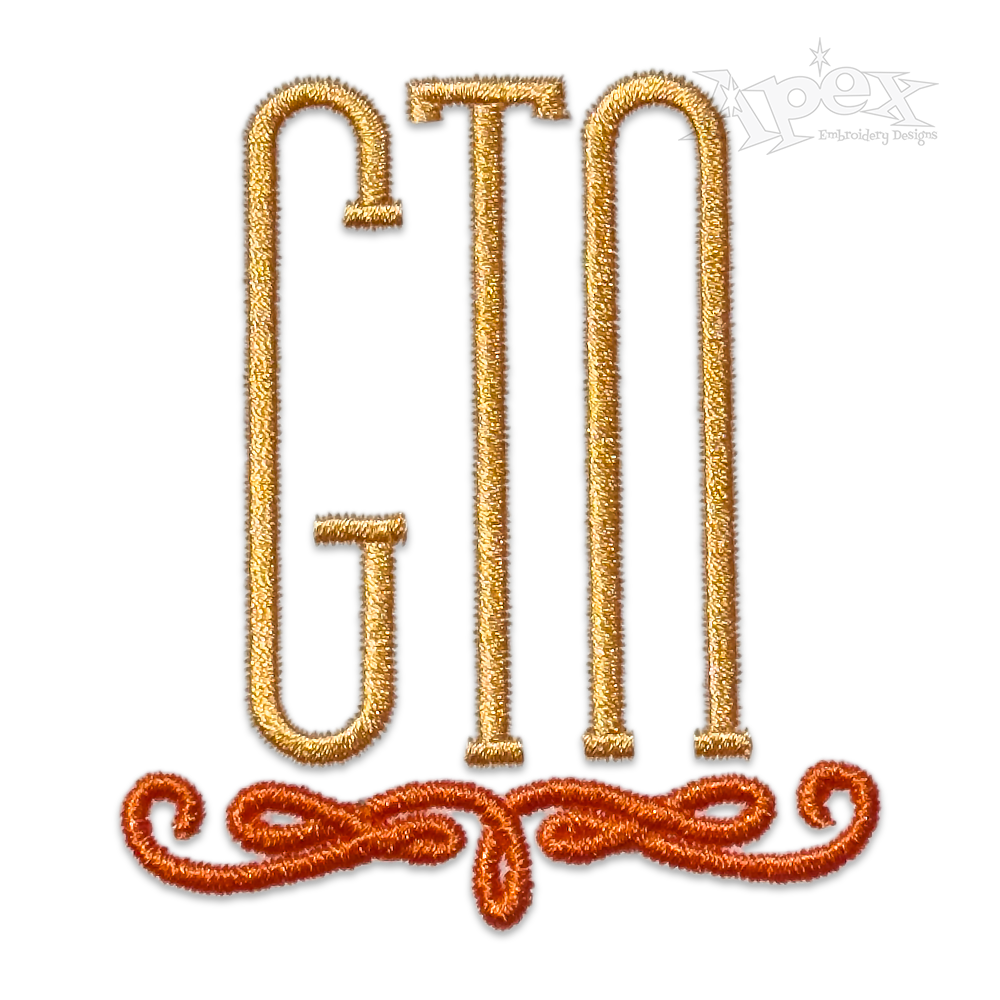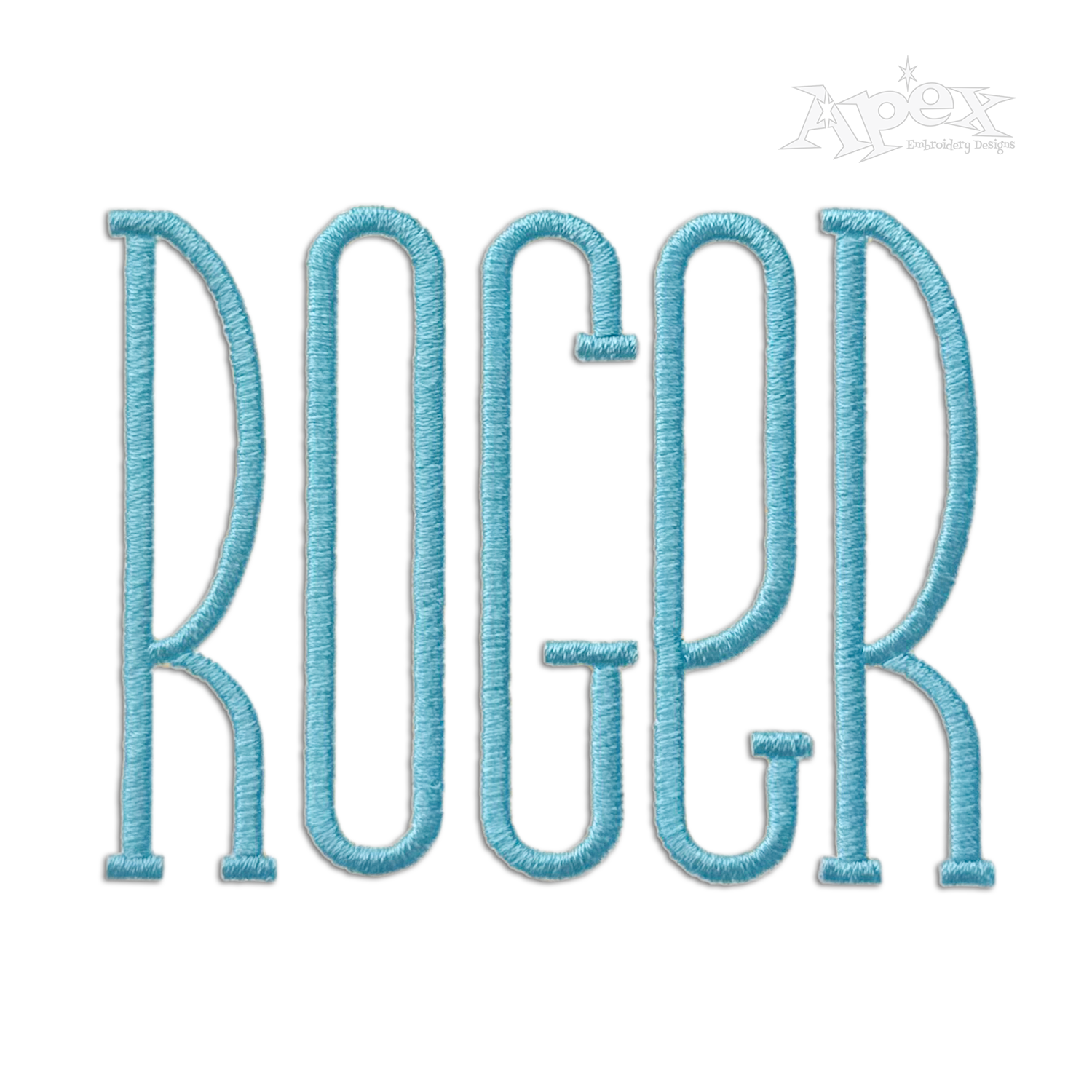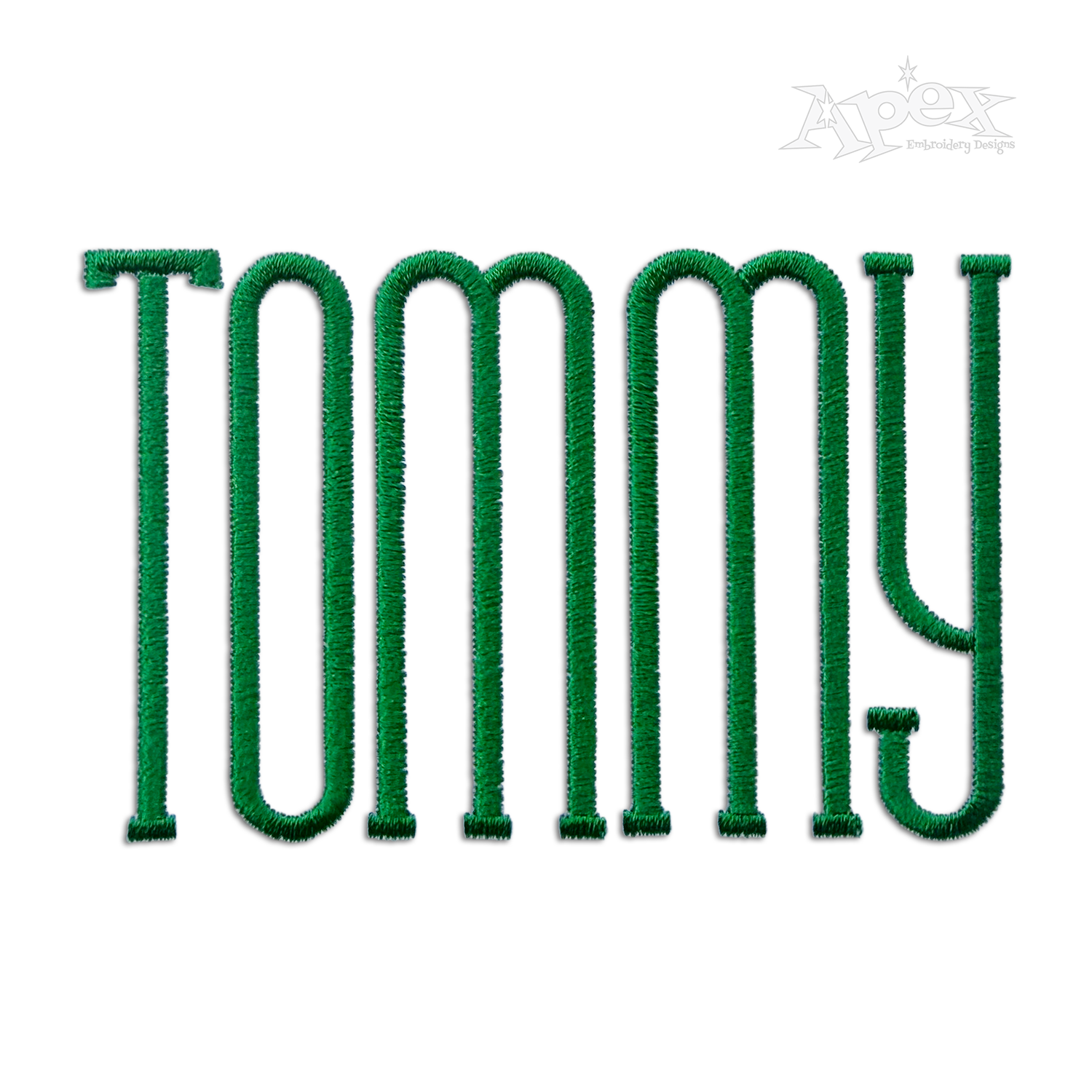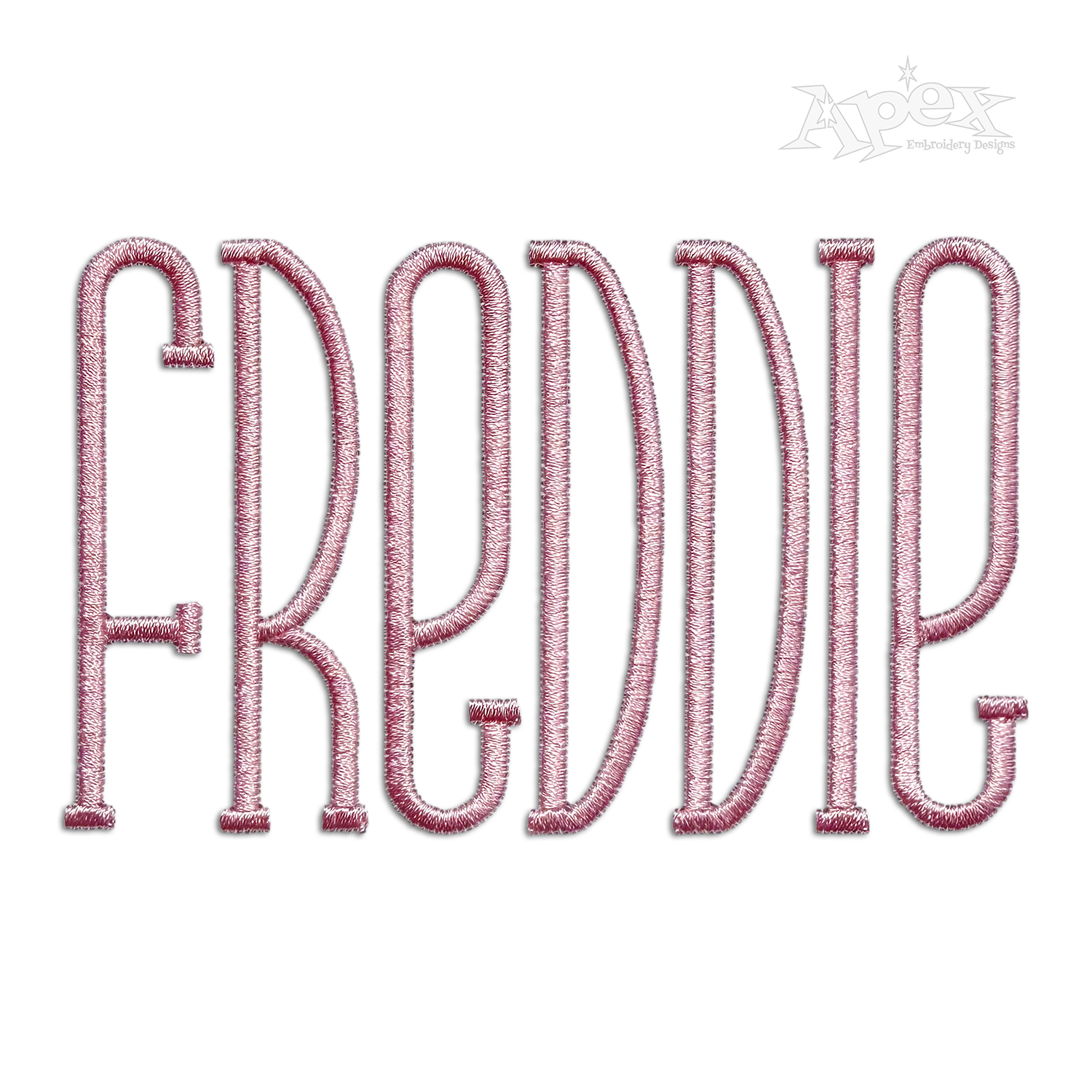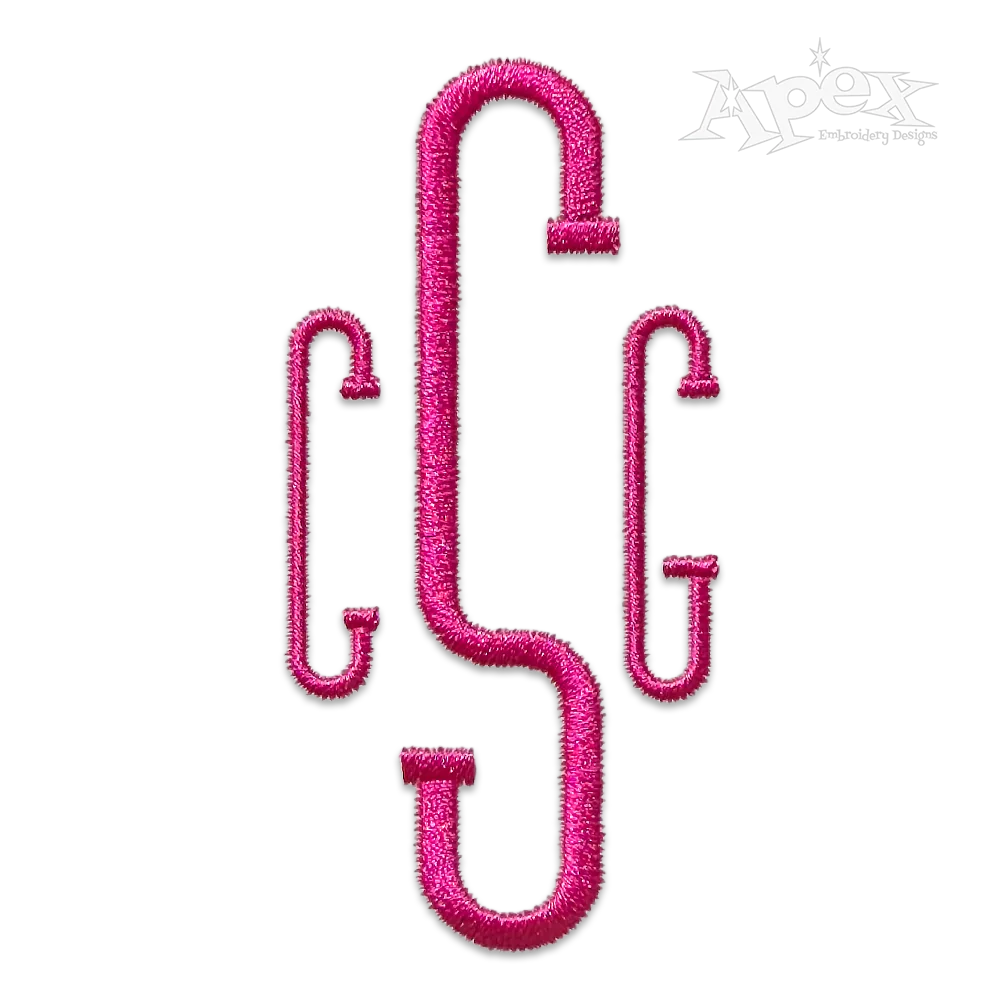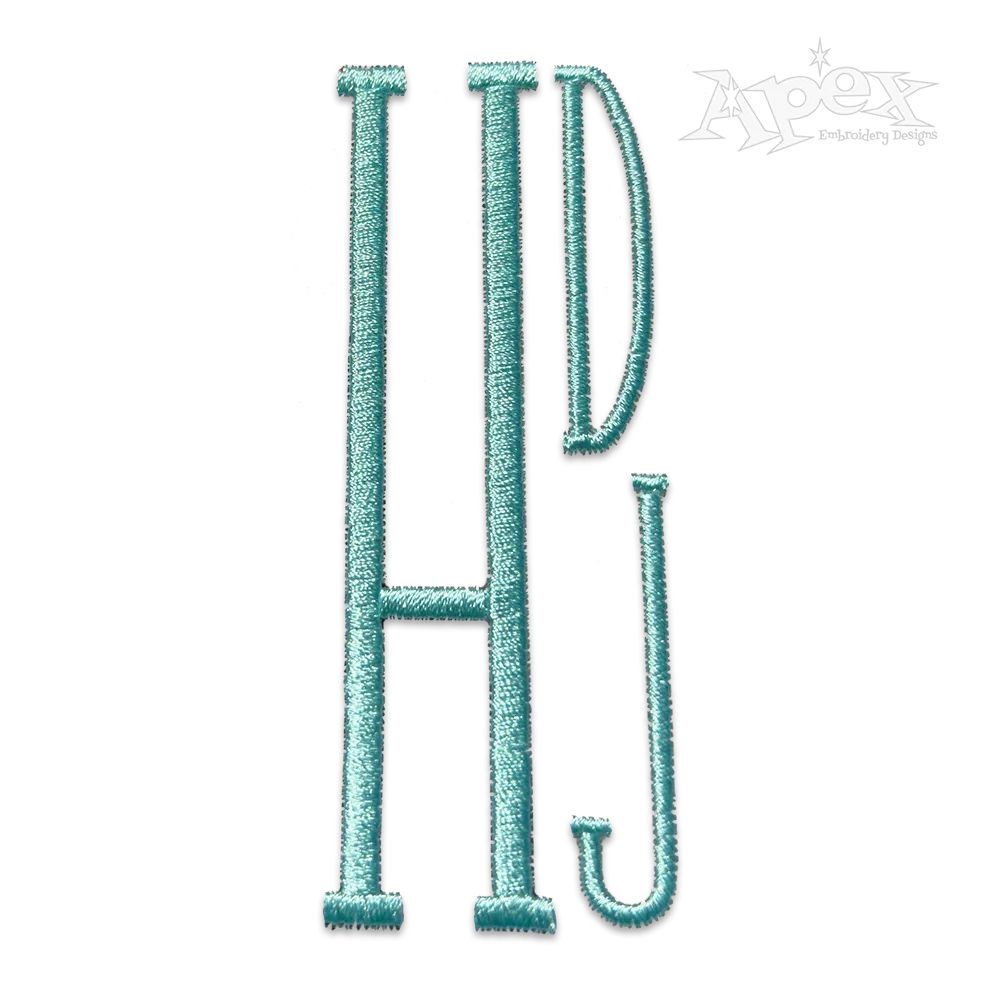
Conceived at the intersection of collegiate heritage and bespoke country estate tailoring, the Parkland Embroidery Font Set brings an air of quiet, architectural dignity to the embroidery hoop. When shaping these letterforms on the digitizing canvas, our focus was on the classic balance of timeless editorial serifs?commanding vertical stems grounded by crisp, purposeful brackets and delicate terminals. Every uppercase character carries an innate gravitas, designed to turn crisp cotton percales, tailored sporting apparel, and heirloom linens into enduring personalized statements with a single pass of the needle.
The Parkland collection is calibrated specifically for bold monogramming and distinctive bespoke lettering, provided in a complete uppercase alphabet across three versatile scales:
- 1.5-inch (approx. 38mm): Designed for delicate personalized gifting, tailored dress shirts, cuffs, accessory pockets, and fine cocktail linens.
- 2.5-inch (approx. 64mm): The gold standard for classic single-initial crests, plush terry towels, tote bags, and personalized baby blankets.
- 3.5-inch (approx. 89mm): A dramatic, statement-making scale crafted for heirloom bedding, grand decorative pillow shams, and luxury outerwear.
Project Ideas for Parkland Embroidery Font
- Luxury Table Linens: Stitch a single 1.5-inch initial on crisp Irish linen dinner napkins or hemstitched cocktail squares for formal entertaining.
- Bespoke Resort & Golf Wear: Embroider the 2.5-inch letterform onto performance piqu? polo shirts, canvas duffle bags, or club headcovers.
- Heirloom Bedding & Bath: Crown 400-thread-count duvet covers, pillowcases, and heavy Turkish bath sheets with a stately 3.5-inch monogram.
- Personalized Gifting: Personalize structured canvas boat totes, wool travel throws, and cashmere scarves with crisp, tailored typography.
- Bridal Party Keepsakes: Create lasting gifts by monogramming bridal robes, cosmetic pouches, and weekenders for a coordinated, sophisticated wedding party aesthetic.
- Corner Diagonal: For dinner napkins and linen placemats, rotate the monogram 45 degrees, positioning the letter 1.5 to 2 inches from the hemstitched corner point for an authentic European finish.
- Center Chest & Pocket: Place the 1.5-inch initial centered over the left chest pocket area (roughly 7 to 9 inches down from the shoulder seam and centered between placket and side seam).
- Grand Pillow Sham Center: Center the 3.5-inch uppercase letter directly in the middle of a standard or king-size decorative sham to serve as an anchor for luxury master bedroom suites.
- Outer Cuff Edge: Embellish tailored French cuffs with the 1.5-inch sizing, placed a half-inch above the wrist hemline facing outward.
Parkland Craft & Letterform Details
True serif typography presents one of the greatest challenges in machine embroidery, where microscopic stitch direction changes dictate whether a serif looks crisp or blunt. For the Parkland alphabet, each letterform has been manually routed with intentional stitch angles that contour naturally with the stroke of the letter. The long vertical columns are built upon robust underlay scaffolds that lift the satin columns, preventing thread sinkage even on high-pile cotton terry or textured linen weaves.
The sharp bracketed serifs feature precise corner turns and carefully mapped entry and exit points to ensure satin sheen consistency across the entire letter. By graduating stitch density across the tapering curves of letters like 'C', 'G', and 'S', the letters maintain a silky, light-catching luster without ever becoming rigid or heavy under the needle. The result is a smooth, unbroken ribbon of stitchwork that pays homage to traditional hand-drawn calligraphic craftsmanship.